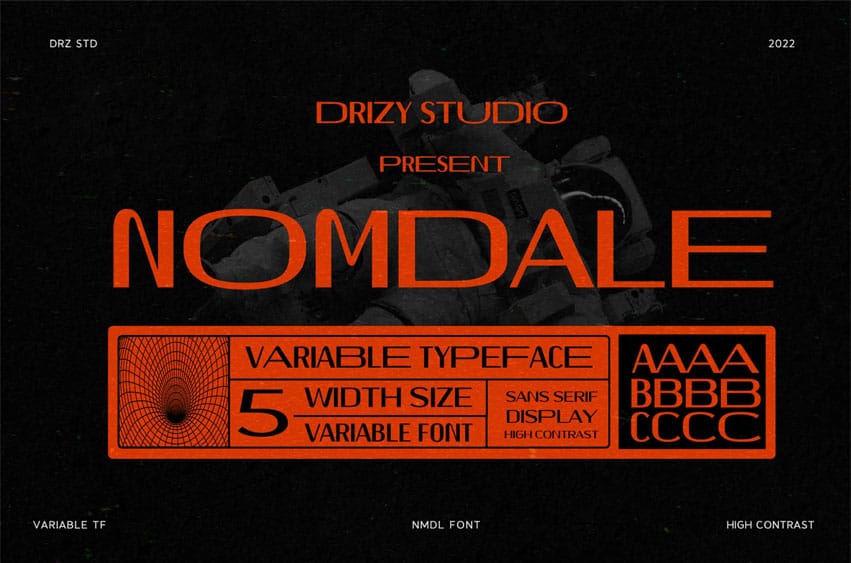
Nomdale Font is a Sans Serif Variable Font from Drizy studio. Offering all the basic styles you will need for a futuristic and space theme.
Nomdale Features: Uppercase & Lowercase Numeral & Punctuation Multilinguals & Alternates
Variables: Consended Regular Expanded Extra Expanded Ultra Expanded